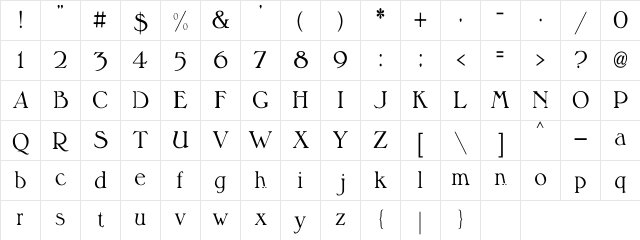
Mousey Regular
Design Context for Mousey
Mousey is a composed and adaptable typeface that performs quietly and consistently across a wide range of design contexts.